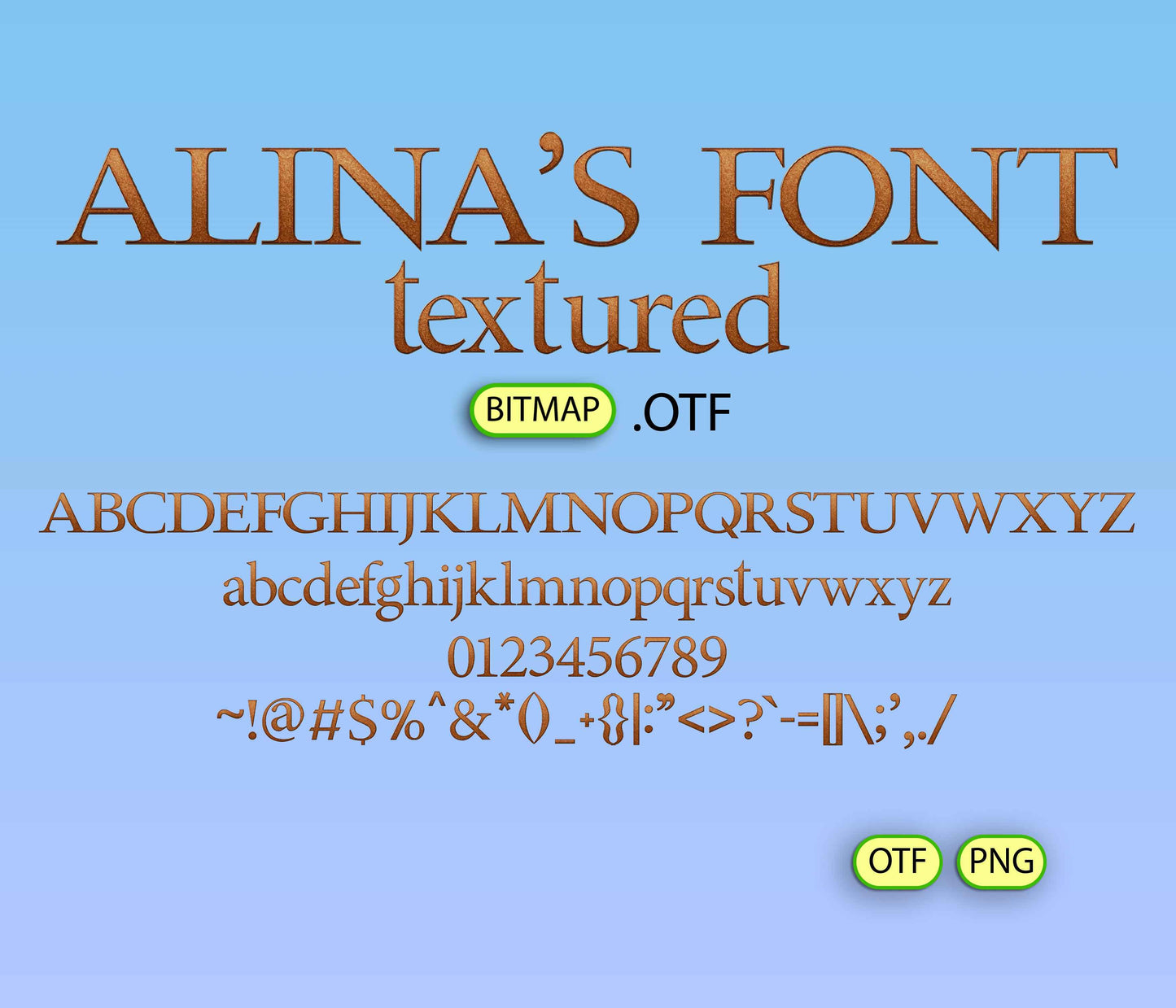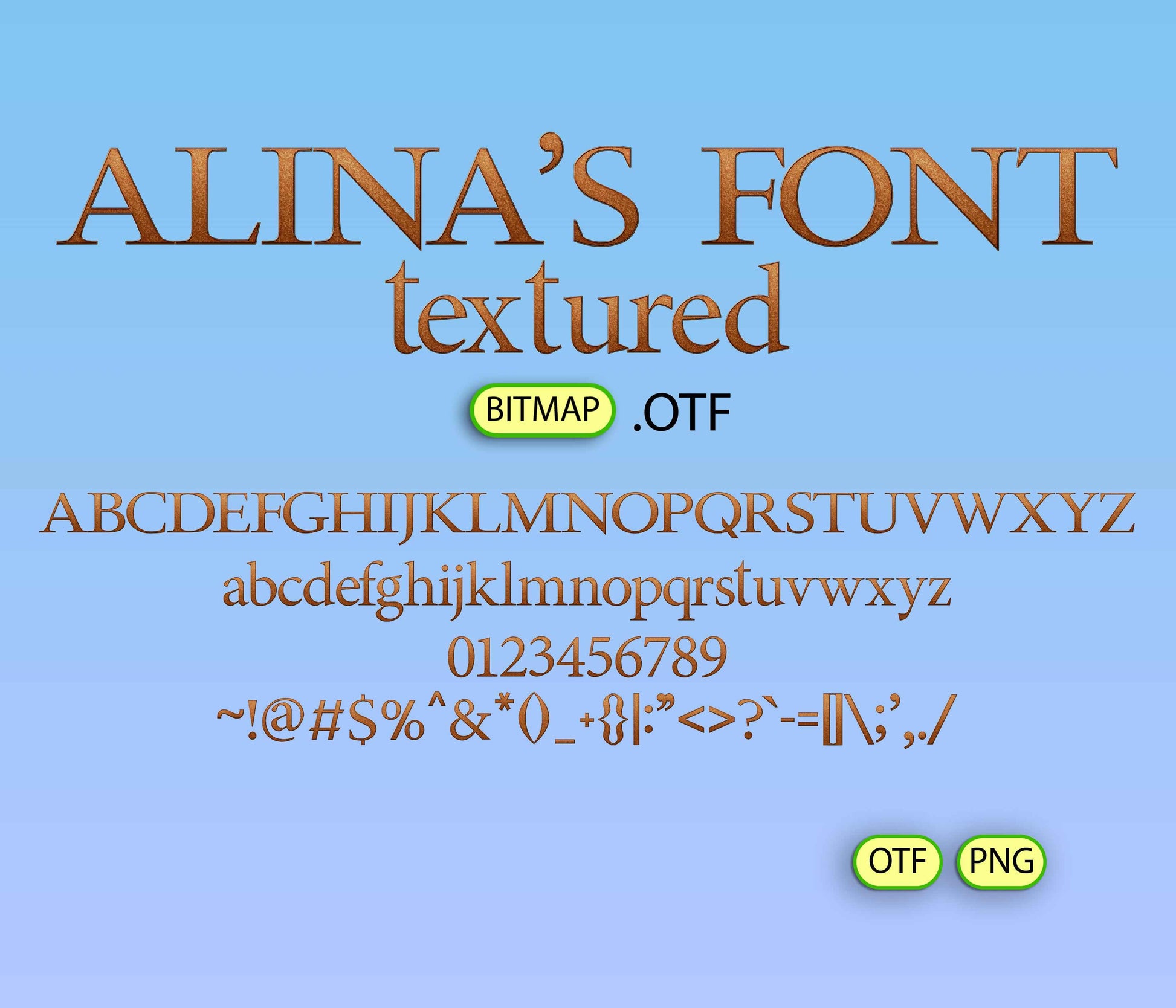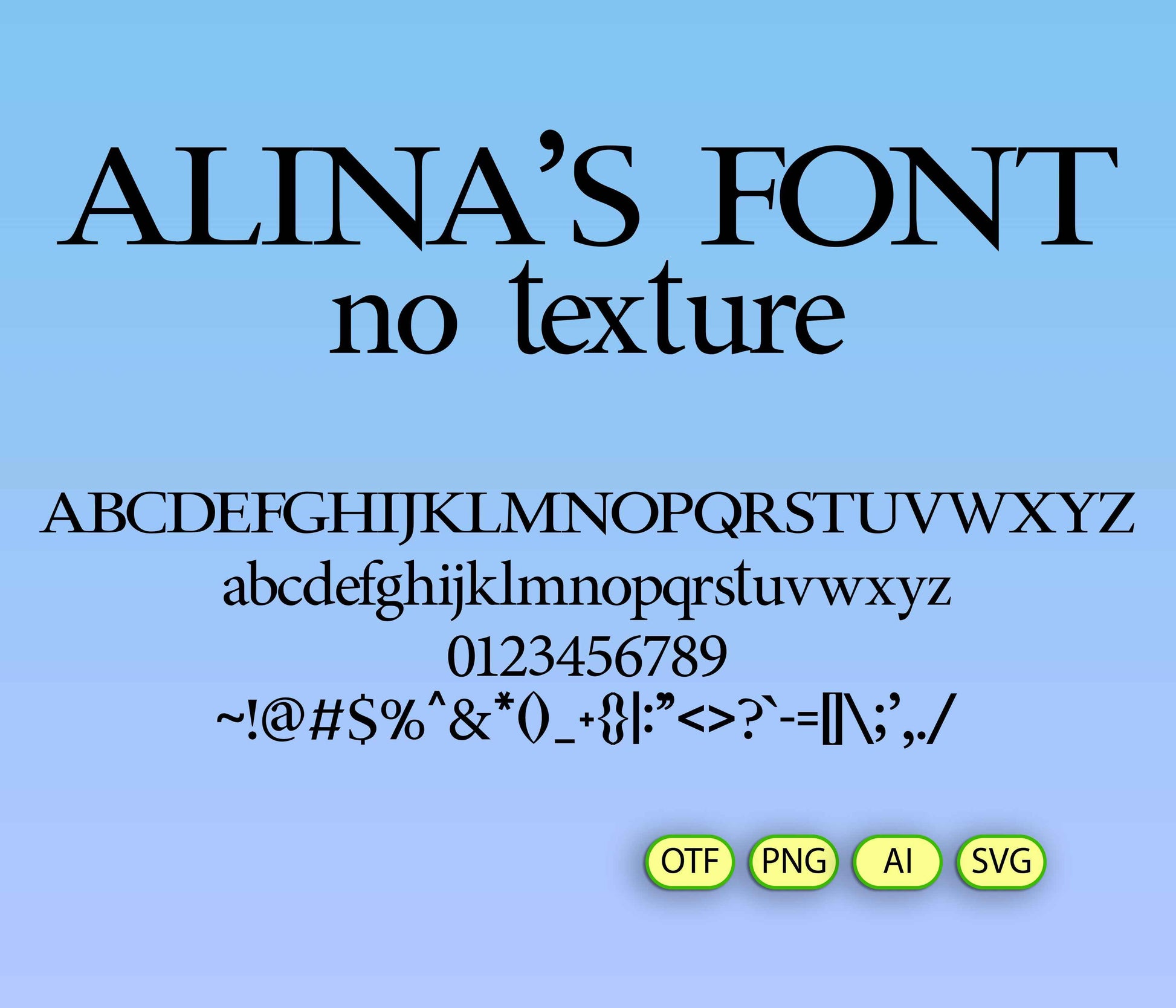
Colosseum Champion Font Textured
Colosseum Champion Font: Echoing the Majesty of Ancient Rome in Every Stroke
Enter the arena of design with the Colosseum Champion font, a typeface that embodies the strength, honor, and timeless epic of ancient Roman gladiators. This font is not merely a set of characters; it is a tribute to the saga of warriors, emperors, and the indomitable spirit of Rome. With each letter, the essence of the ancient world, its battles, and its storied history is brought to life, offering designers and fans alike a way to capture the grandeur of gladiatorial legacy in every project.
What font is the Colosseum Champion font?
The Colosseum Champion font is crafted with the precision of a master blacksmith, ensuring that each letter and symbol resonates with the power and drama of epic historical tales. The font transcends mere typography, incorporating elements of Roman architectural and artistic motifs, reflecting the opulence and might of the ancient empire. Its character set is comprehensive, providing users with not only alphabets but also numerals and special characters, making it a versatile tool for a broad spectrum of design needs. The bold lines and sharp edges evoke the armor and weapons of Rome's greatest heroes, while subtle curves hint at the elegance and artistry that flourished in the shadow of the Colosseum.
The Colosseum Champion font offers unparalleled versatility, enabling its application across a myriad of projects that seek to channel the epic scope and emotional depth of gladiatorial narratives:
1. Movie Posters and Fan Art: Design stunning visuals that capture the essence of historical epics.
2. Historical Documentaries: Enhance titles and graphics with a font that speaks to the weight of history.
3. Themed Event Invitations: Invite guests to step back in time with uniquely styled invitations.
4. Merchandise Design: Create apparel, accessories, and memorabilia that history enthusiasts will treasure.
5. Book Covers: Give historical novels and works on ancient Rome a fittingly majestic title font.
6. Video Game Interfaces: Immerse players in the ancient world with typography that sets the scene.
7. Social Media Campaigns: Stand out with content that carries the boldness of gladiatorial ethos.
8. Educational Materials: Make learning about history more engaging with visually compelling titles and headings.
9. Website Design: Infuse your digital space with the grandeur of ancient Rome.
10. DIY Crafts and Decor: Bring a touch of classical elegance to home decor and personalized projects.
The Colosseum Champion font package is a designer's arsenal, equipped with both textured and FREE non-textured variants to ensure maximum flexibility across all types of media and platforms, including Canva. This adaptability makes it perfect for both print and digital projects, ensuring your work resonates with the epic quality of gladiatorial tales, no matter the medium.